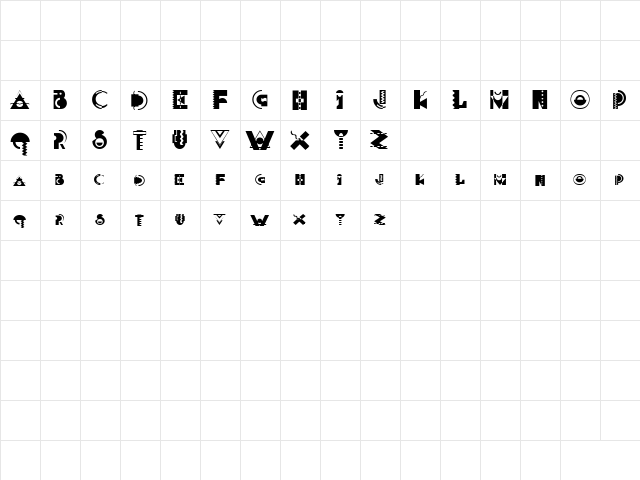
Memphis Display Regular
Design Context for Memphis Display Typeface
Memphis Display brings ornamental detail and strong personality to headlines and identities, where visual impact matters more than quiet functionality.
Font Pairing: Pair with a clean neutral sans-serif for body copy to let Memphis Display's character lead without overwhelming the composition.
Pro Tip: Use Memphis Display exclusively at display sizes — it was designed to be seen, not read at length. Let a neutral companion handle body copy.